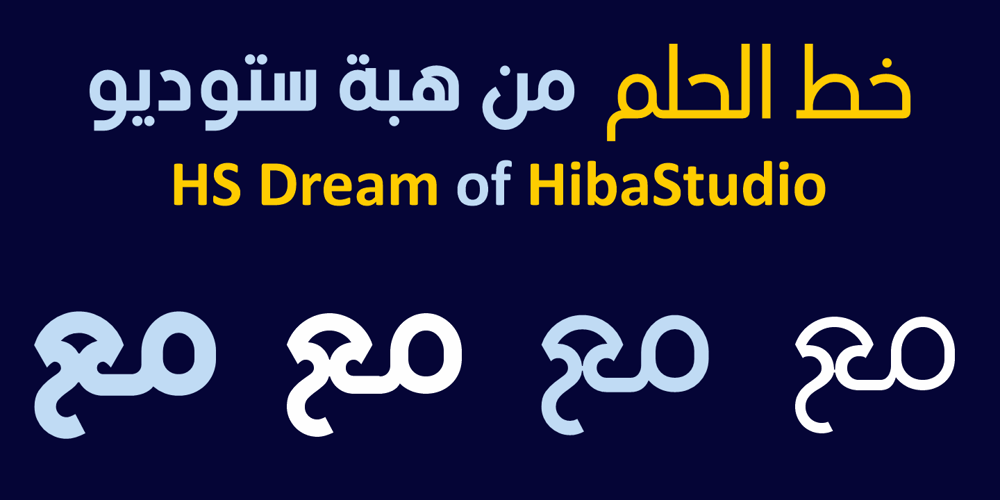
HS Dream Font Family was designed by Hasan Abu Afash and published by Hiba Studio. HS Dream contains 7 styles and family package options. HS Dream is based on some modern lines of Kufi calligraphy which supports Arabic, Persian. The typeface has been optimized for corporate identity work and modern projects when a contemporary and simple look is requested. It is an Opent type Arabic font and features four stylistic sets. This font consists of four weights (light, regular, medium and bold) which can constitute a striking addition to the library of Arabic fonts models that meet the purposes of various designs for all taste.